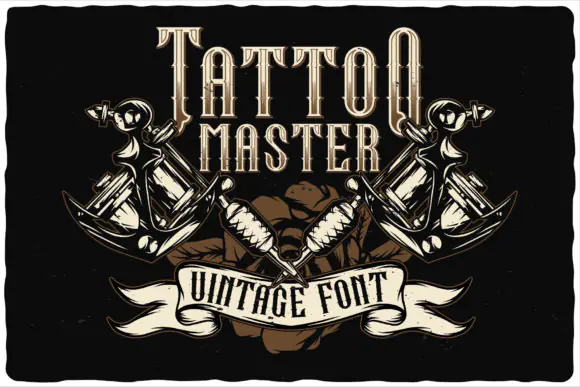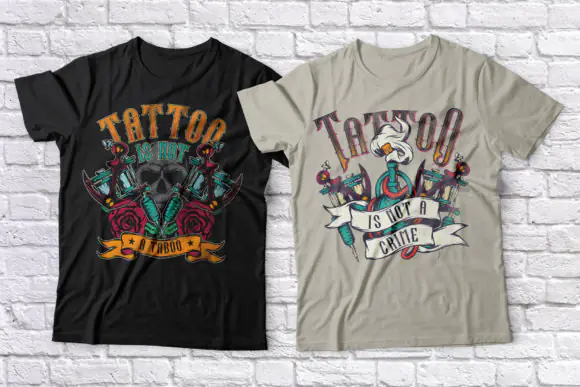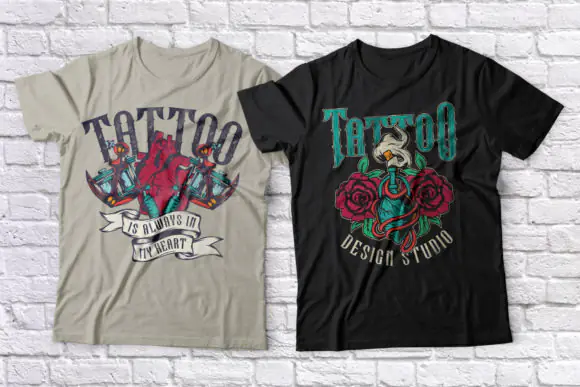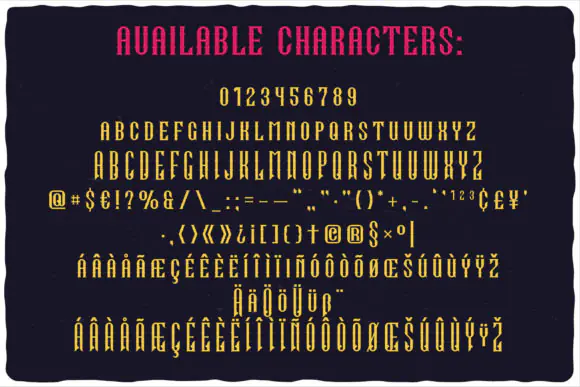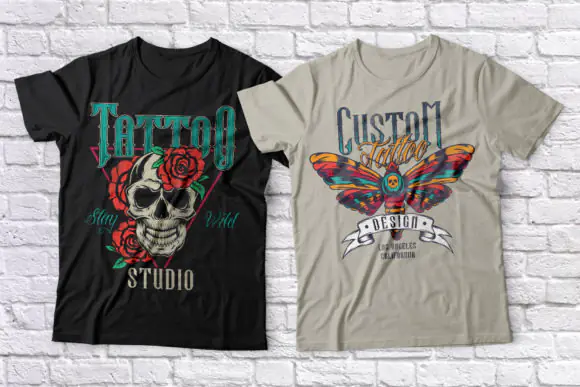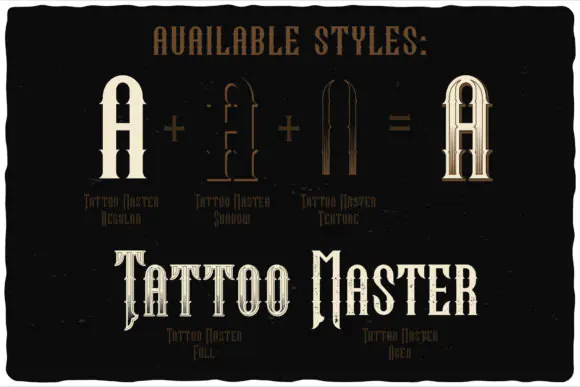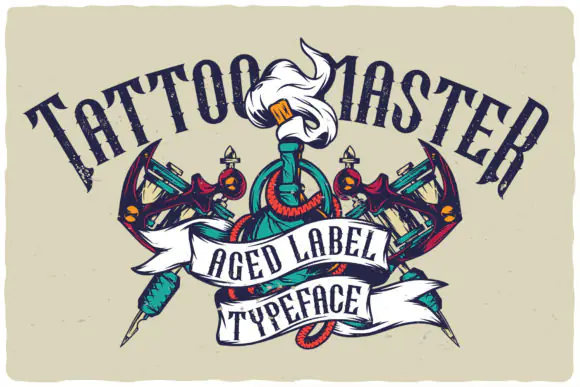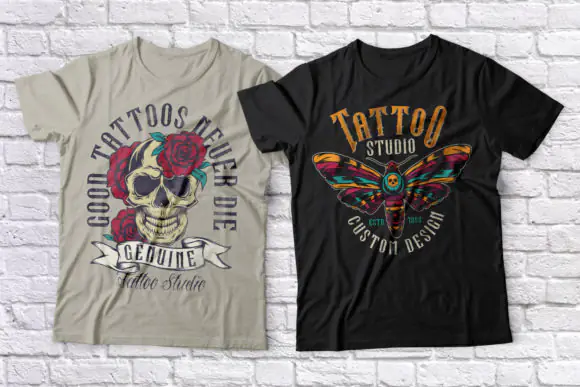
Create strong, bold, and eye-catching designs with Tattoo Master Font, a simple yet highly effective blackletter font made for projects that need a powerful tattoo-style appearance. With its impressive gothic-inspired letterforms, this font helps your designs stand out with confidence and impact.
Tattoo Master Font is perfect for tattoo designs, logos, apparel graphics, t-shirt prints, hoodie designs, posters, flyers, album covers, stickers, labels, product packaging, barbershop branding, motorcycle-themed artwork, streetwear designs, wall art, quote graphics, and social media posts.
Its bold blackletter style makes it especially useful for display typography, strong headlines, dramatic titles, and statement designs. Whether you are creating tattoo-inspired artwork, gothic branding, vintage merchandise, or edgy promotional graphics, Tattoo Master Font gives your work a bold and memorable visual identity.
Tattoo Master Font is a strong choice for designers, tattoo artists, apparel sellers, crafters, and digital product creators who want a bold blackletter font for professional gothic and tattoo-style designs.